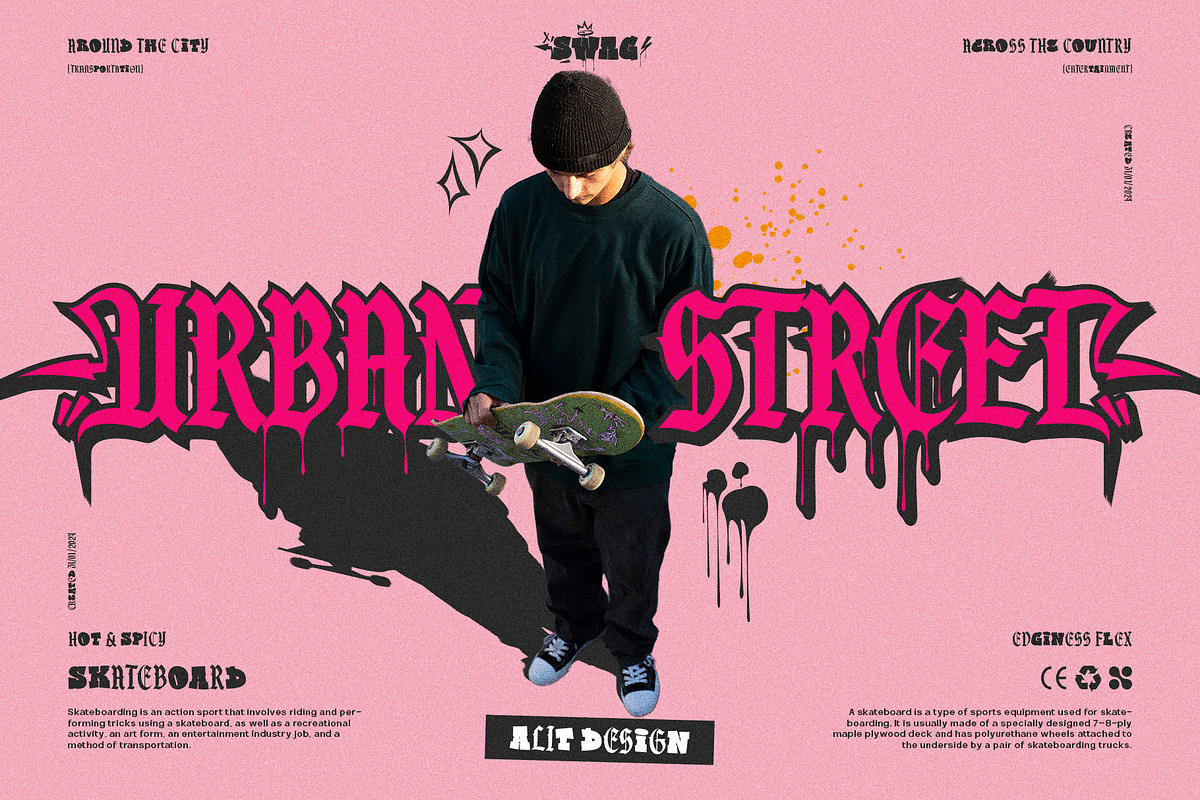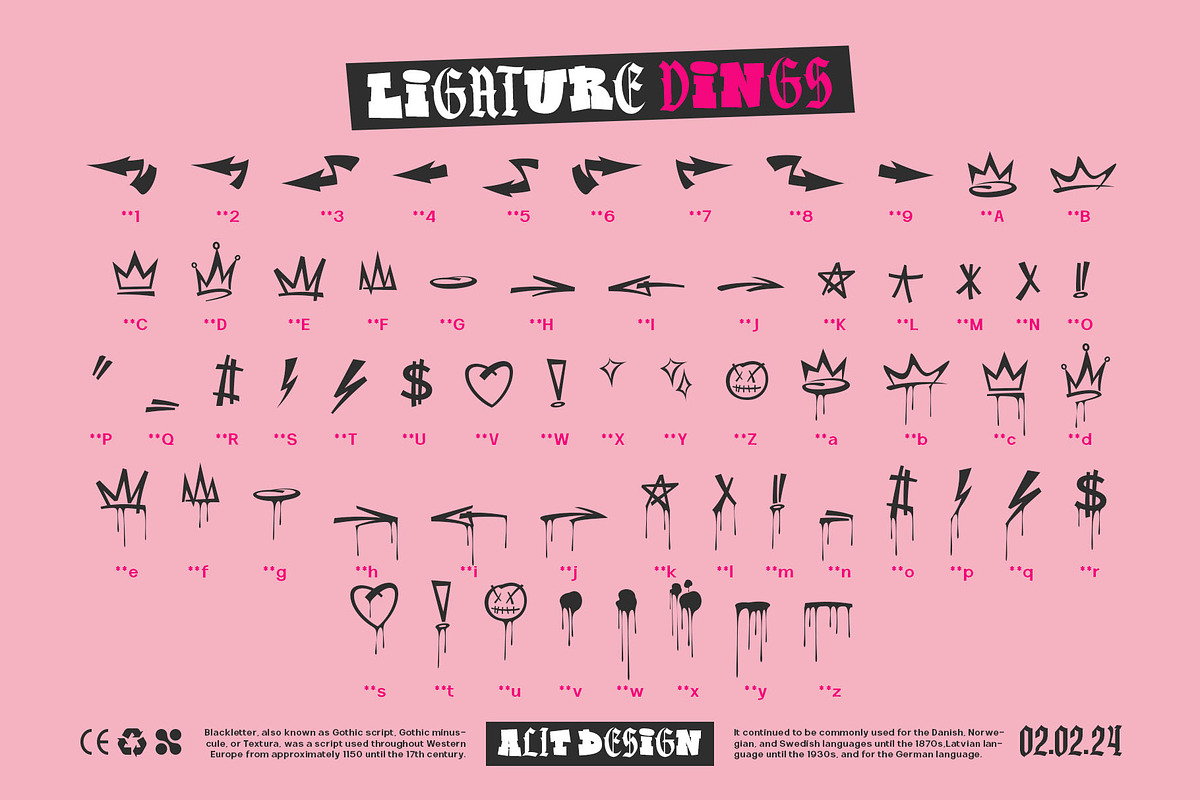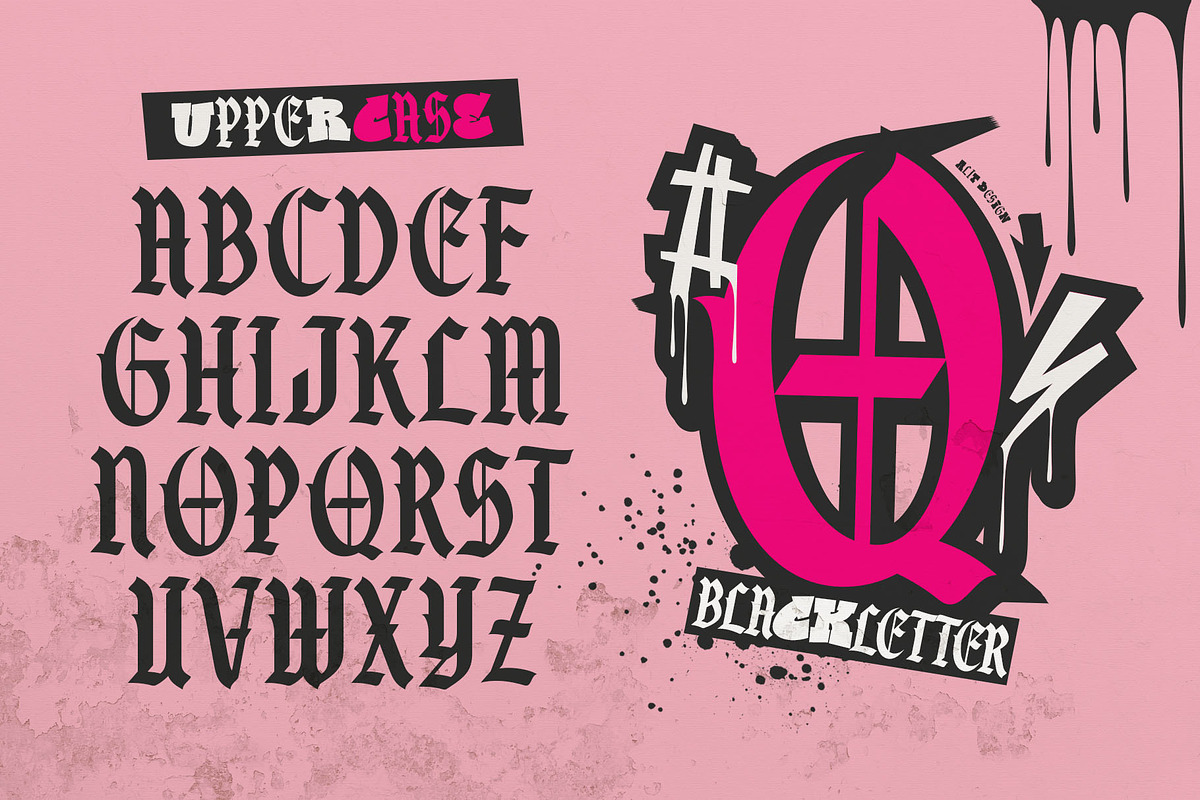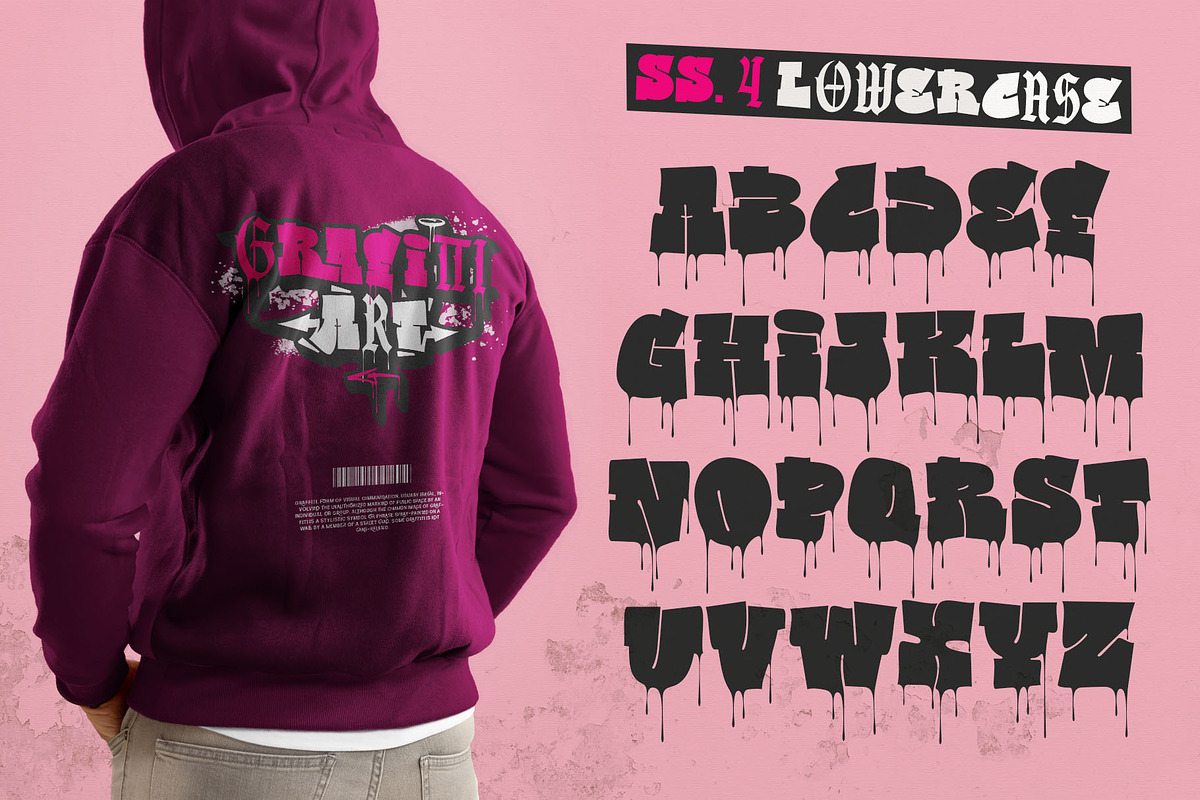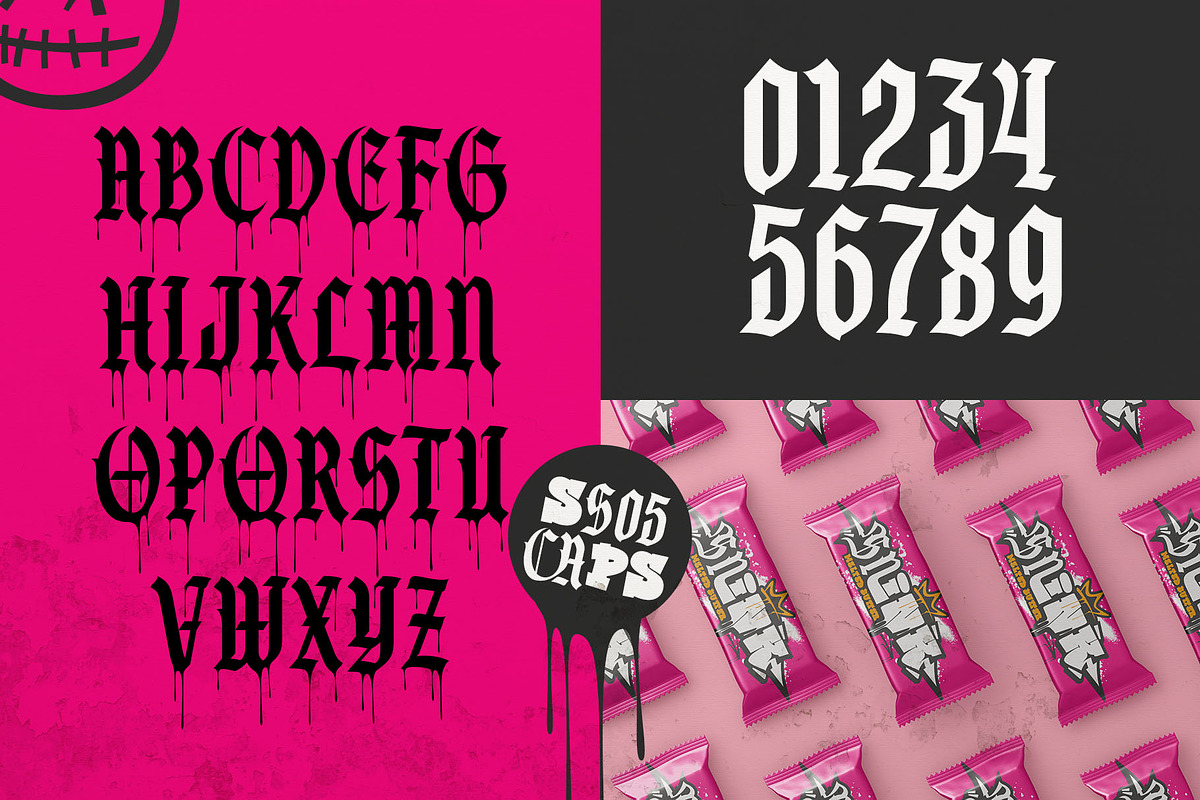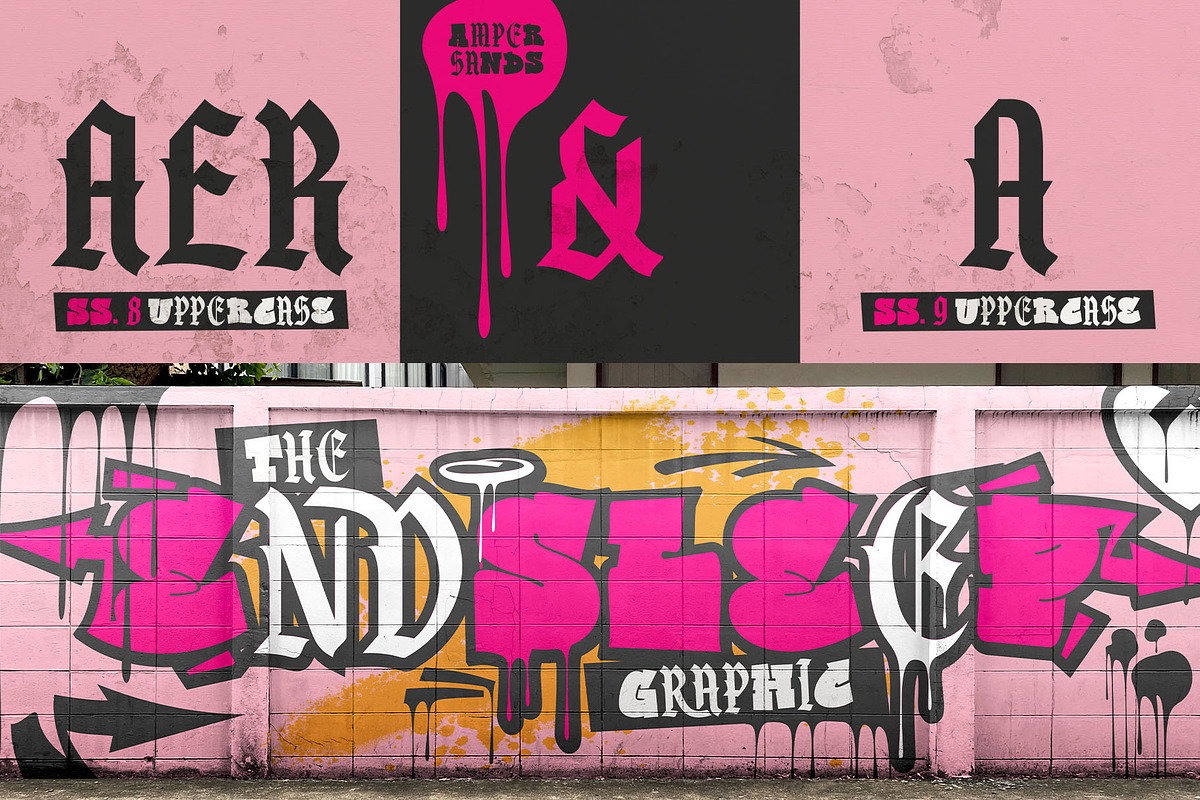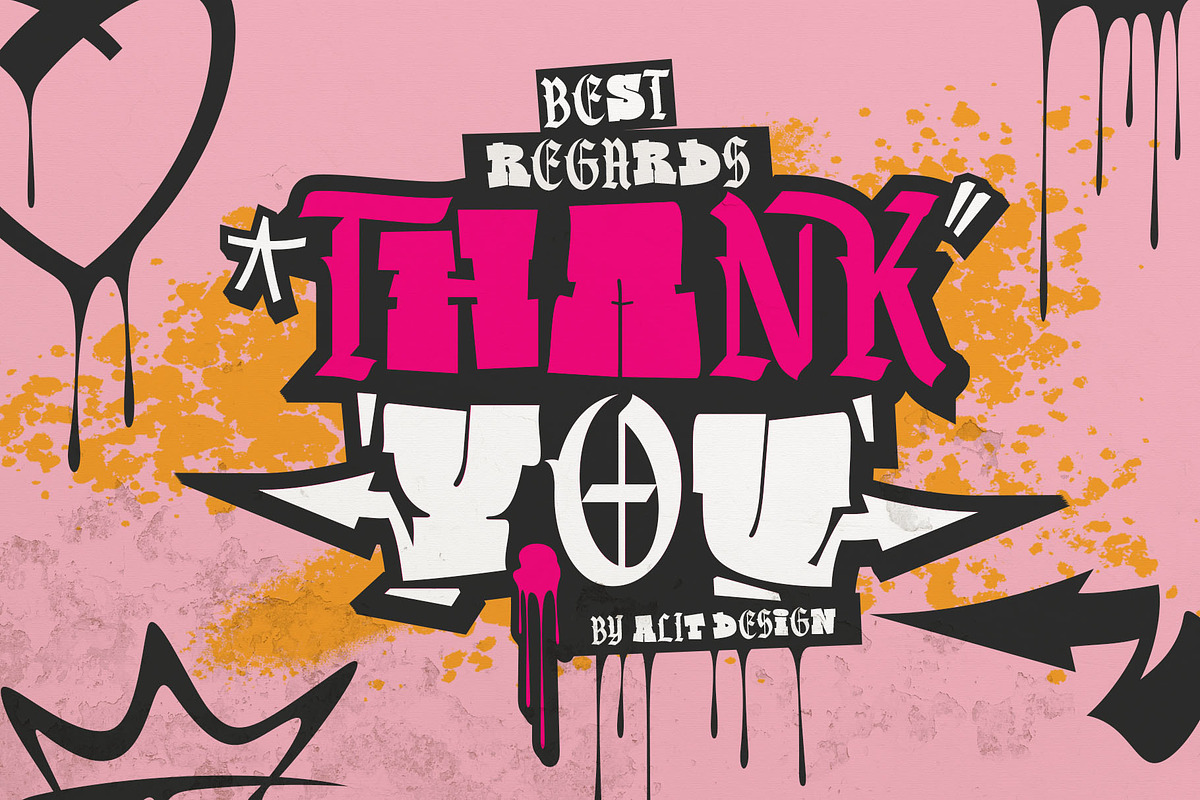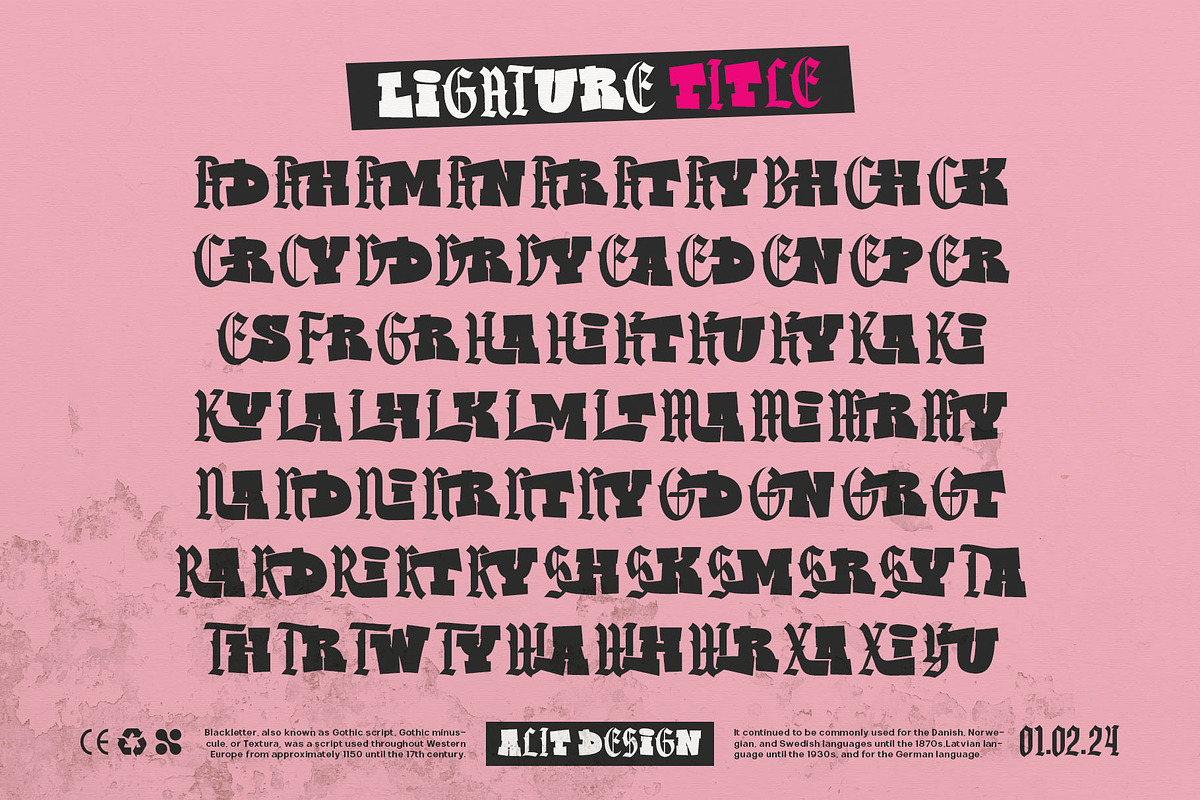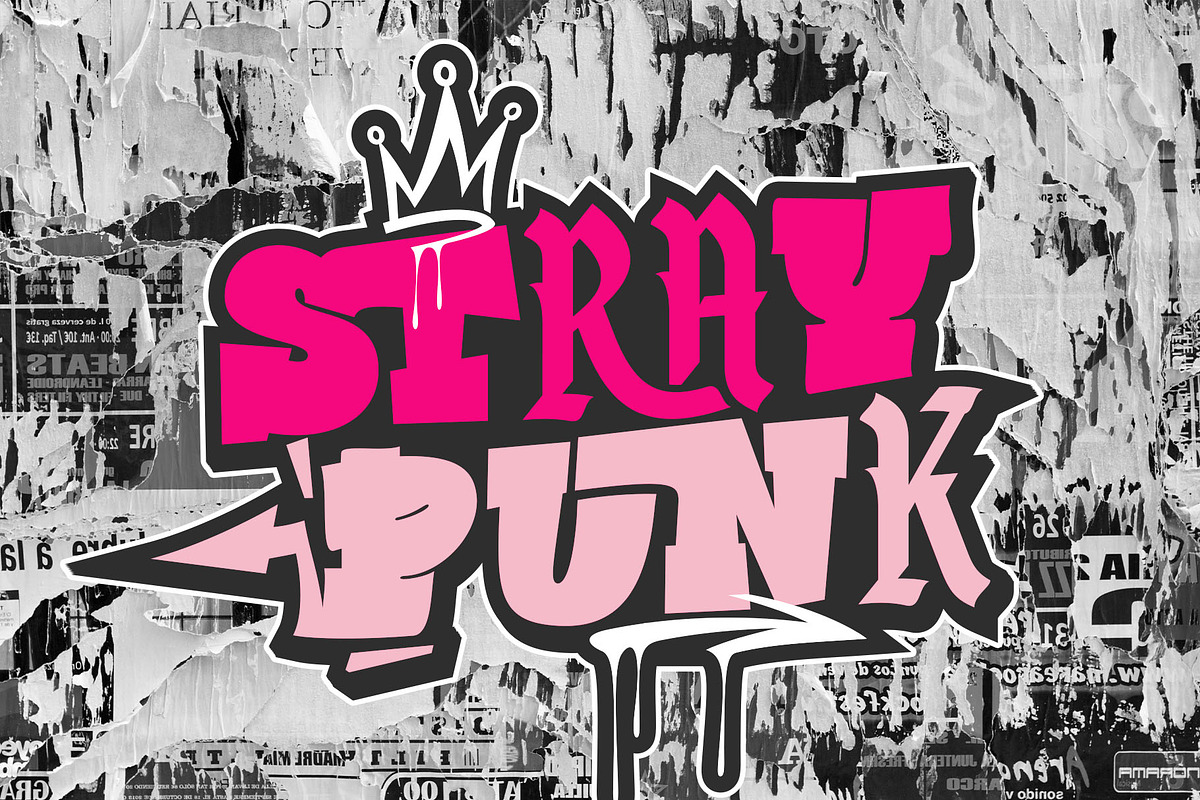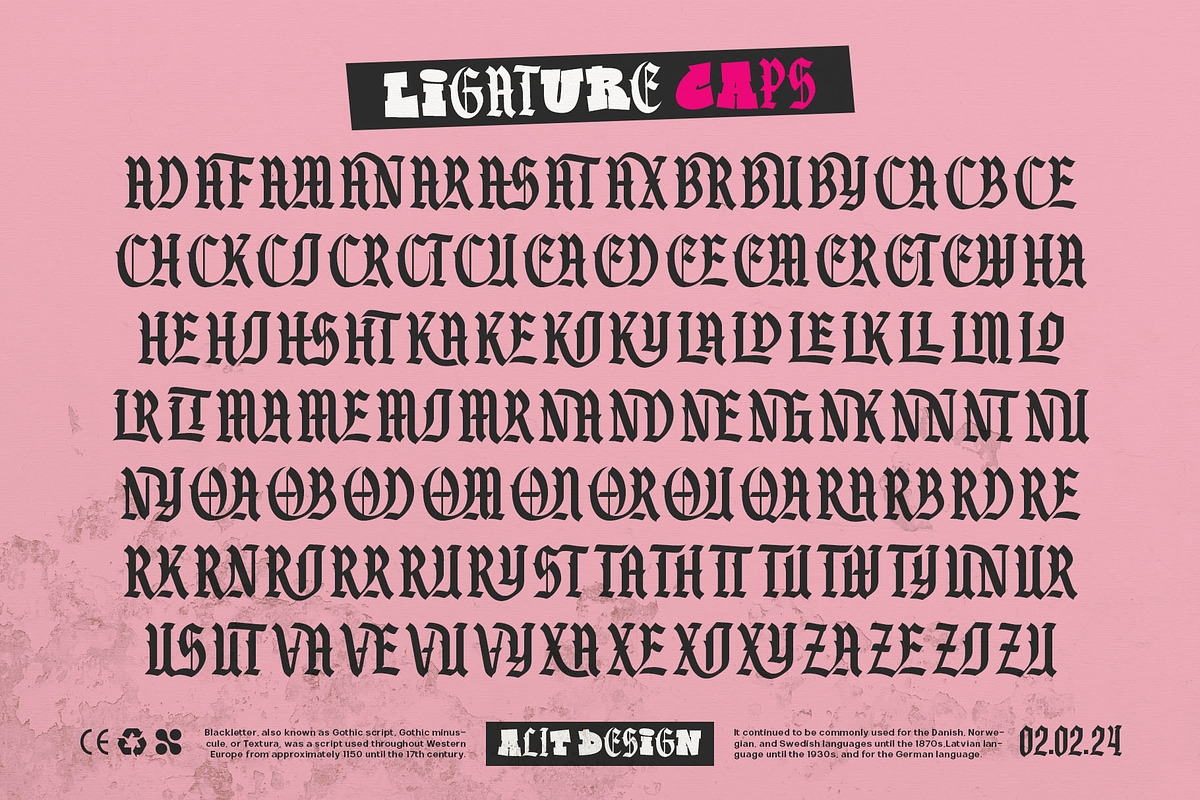
Vandal Street Graffiti Font
Vandal Street Graffiti Font is a bold and expressive typeface that seamlessly blends the dynamic energy of graffiti with the intricate aesthetics of blackletter. Inspired by the raw urban culture of street art, this font exudes a rebellious spirit and urban authenticity.
Graffiti Influence:The font's characters are imbued with the fluidity and spontaneity reminiscent of graffiti tags and throw-ups found on city walls. Each letter retains a sense of movement and dynamism, capturing the essence of street art.
Fat Style: The letters are characterized by a fat, bold appearance, giving the font a commanding presence. Thick strokes and exaggerated proportions add to its visual impact, making it suitable for headlines, posters, and urban-themed designs.
Blackletter Elements: Drawing inspiration from traditional blackletter typefaces, Vandal Street Graffiti Font incorporates intricate details and sharp angular forms. These elements infuse the font with a sense of historical richness and artistic depth, adding a unique twist to its urban aesthetic.
Mix of Styles: By combining the boldness of graffiti with the ornate intricacy of blackletter, this font offers a distinctive fusion of styles. It bridges the gap between the gritty, contemporary world of street art and the timeless elegance of calligraphic traditions.
Expressive Character Set: Vandal Street Graffiti Font includes a comprehensive character set that encompasses uppercase and lowercase letters, numerals, punctuation marks, and special symbols. Each character is meticulously crafted to maintain consistency and readability while staying true to the font's distinctive style.
Versatile Usage: Whether used for graffiti-inspired designs, edgy branding projects, or urban-themed artworks, Vandal Street Graffiti Font adds a bold and authentic touch to any creative endeavor. Its versatility makes it suitable for a wide range of applications across print and digital media.
Overall, Vandal Street Graffiti Font offers a captivating fusion of fat graffiti style and blackletter aesthetics, making it a versatile and visually compelling choice for designers seeking to infuse their projects with urban flair and artistic expression